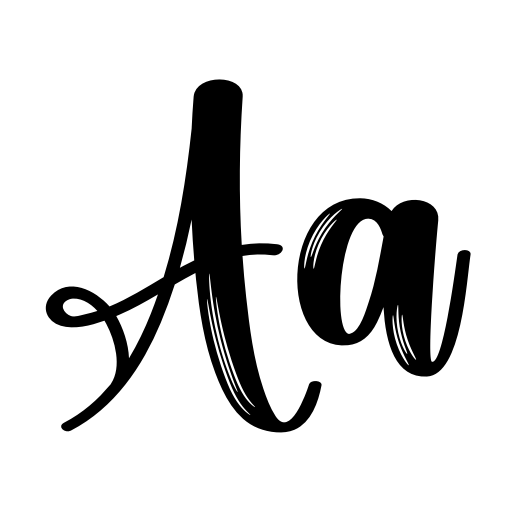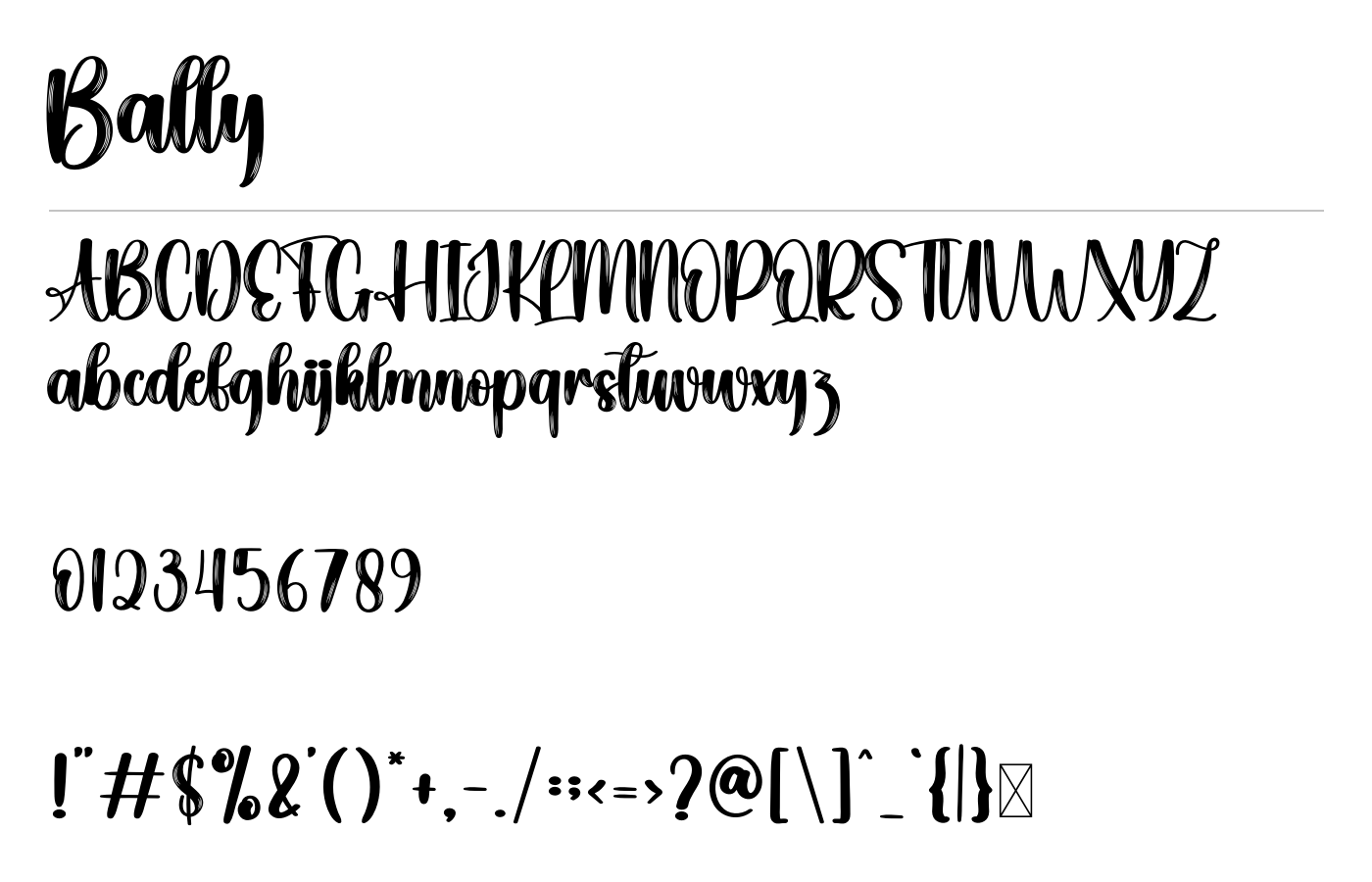
Bally is a playful and lively script font that showcases bold, brush-like strokes with dynamic contrast between thick and thin lines. Its casual, handcrafted style and unique letterforms with expressive swashes make it ideal for creative branding, informal invitations, posters, and headlines where a fun and energetic vibe is desired. This font brings a fresh, modern feel while maintaining readability and charm in display use.
Bally Font